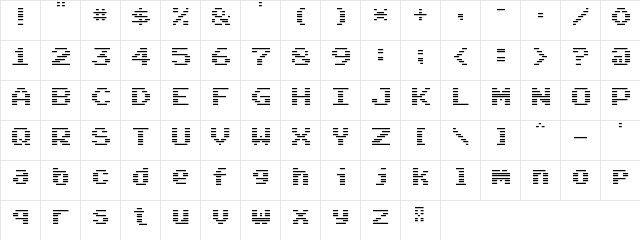
Arcade Classic Regular
| Foundry | Glitch: Freeware Fonts |
| Designer | K.Hachmang |
Design Context for Arcade Classic Typeface
Arcade Classic has the warm character of retro typography — evoking diners, record sleeves, and the golden age of print advertising.
Font Pairing: Combine Arcade Classic with a simple slab or neutral sans — period-accurate companions reinforce the vintage feel without competing for attention.
Pro Tip: Use Arcade Classic for headlines and pull quotes rather than body copy — its personality is best appreciated in short, focused bursts.